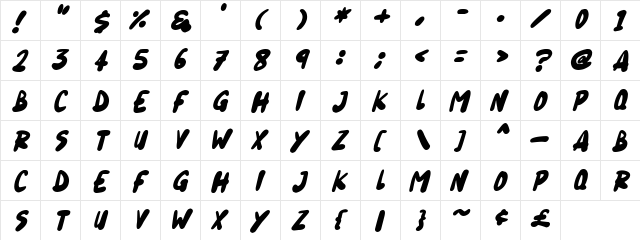
Blueberry Italic
Design Context for Blueberry Typeface
Blueberry is a composed and adaptable typeface that performs quietly and consistently across a wide range of design contexts. Its italic angle brings a sense of urgency and motion to the letterforms.
Pro Tip: Use Blueberry for emphasis, pull quotes, and subheadings where its slanted energy can add rhythm to the layout.